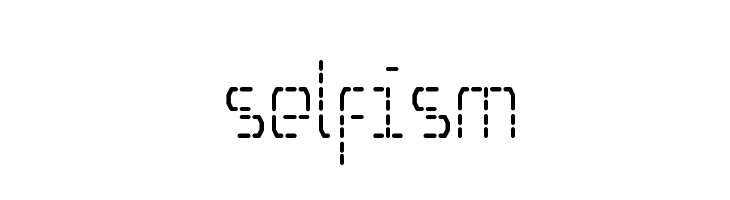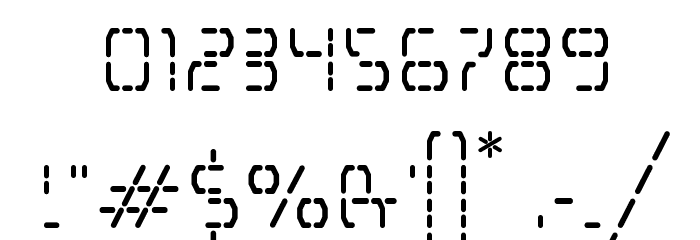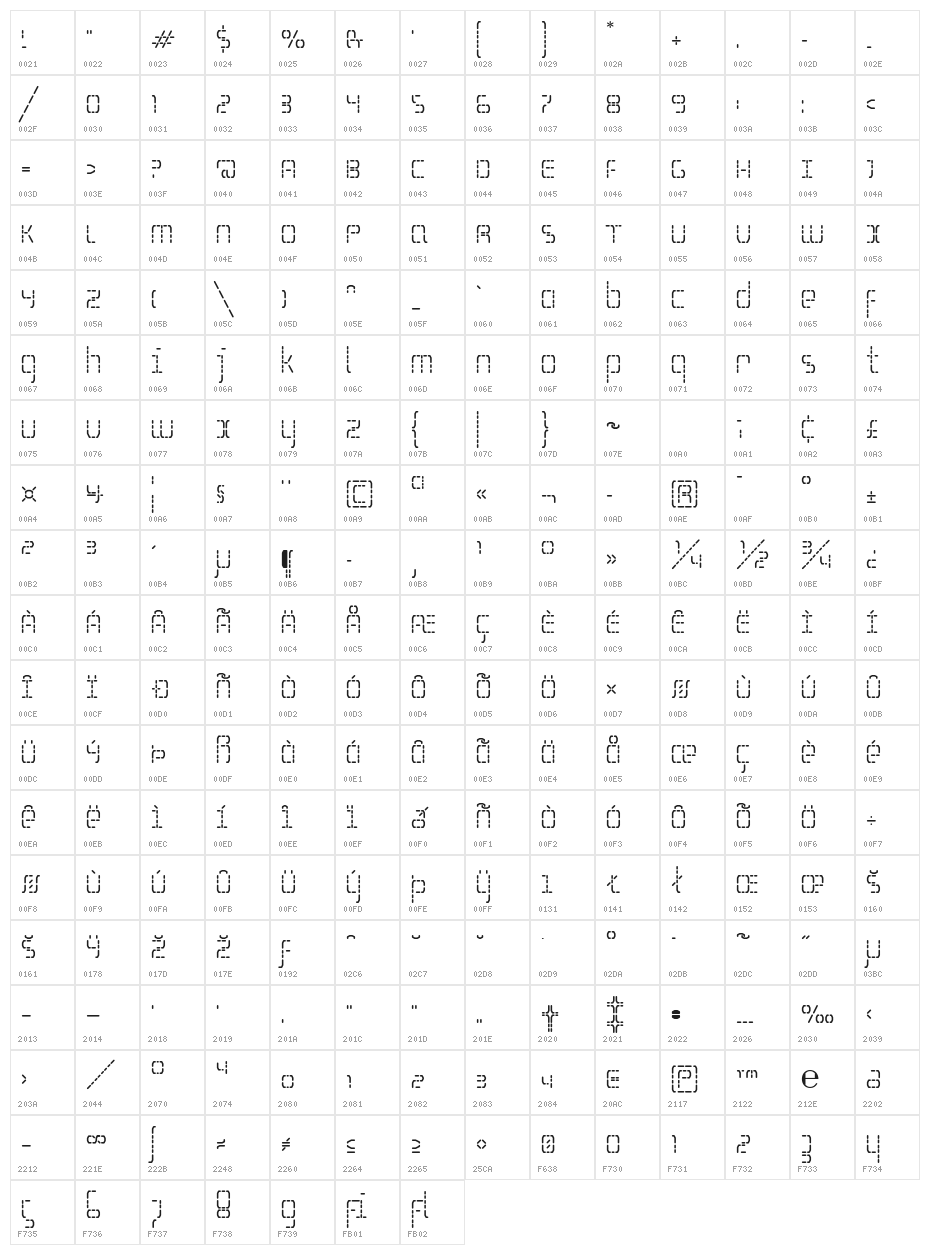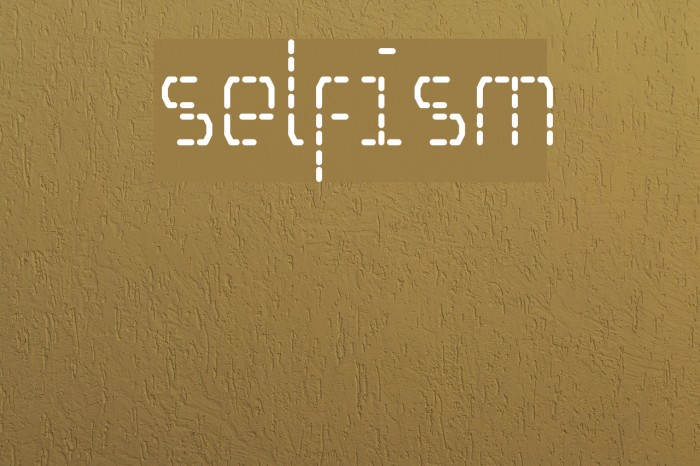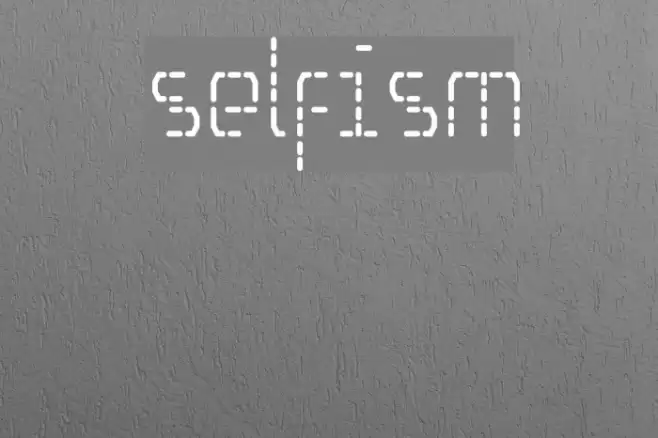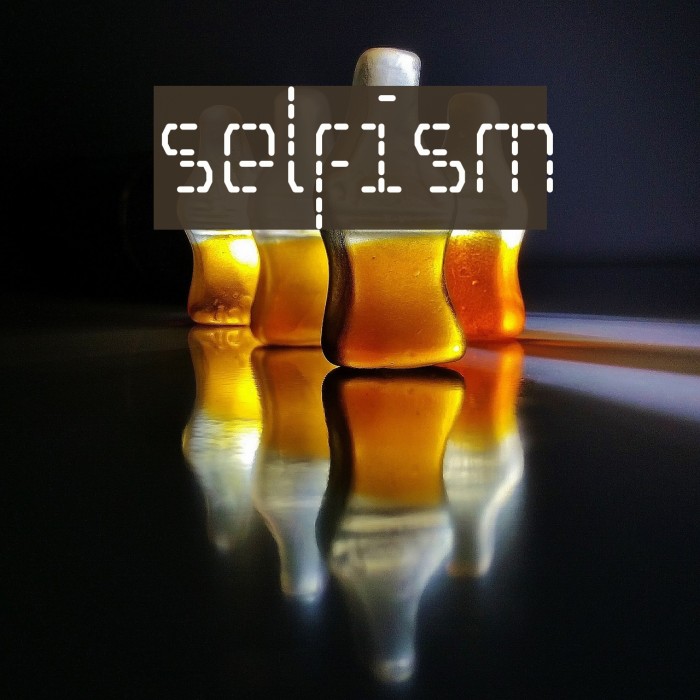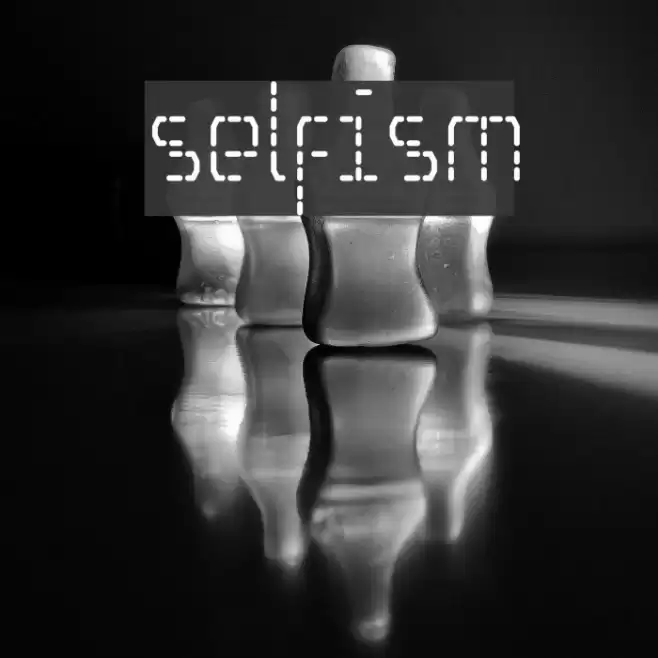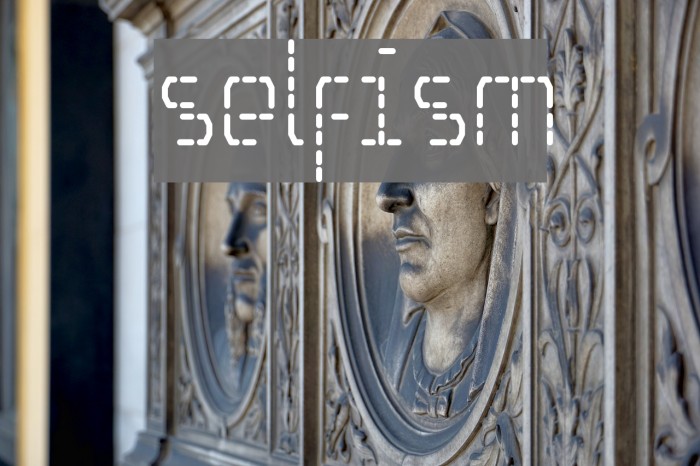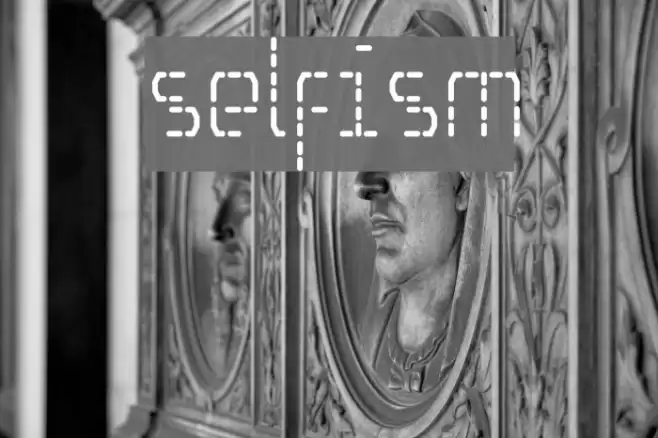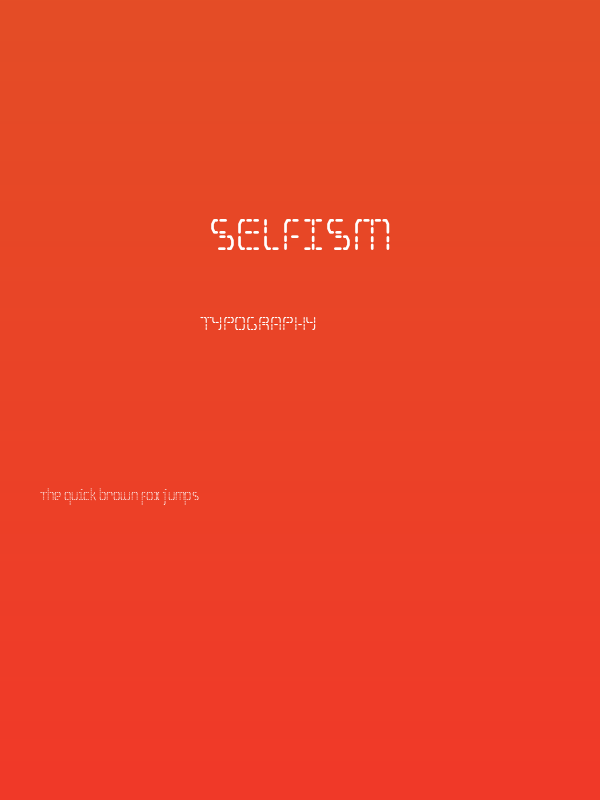
Selfism Font
Selfism Description
This font features a unique, dotted design that gives it a digital and futuristic appearance. Each character is constructed from a series of evenly spaced dots, creating a sense of rhythm and uniformity. The uppercase and lowercase letters maintain a consistent height, contributing to a clean and organized look. Numbers and special characters are also designed with the same dotted pattern, ensuring a cohesive style throughout. This font's distinct appearance makes it ideal for projects that require a modern, tech-inspired aesthetic.
| Proposed Projects | Ideal for digital interfaces, tech branding, futuristic posters, and modern art projects. |